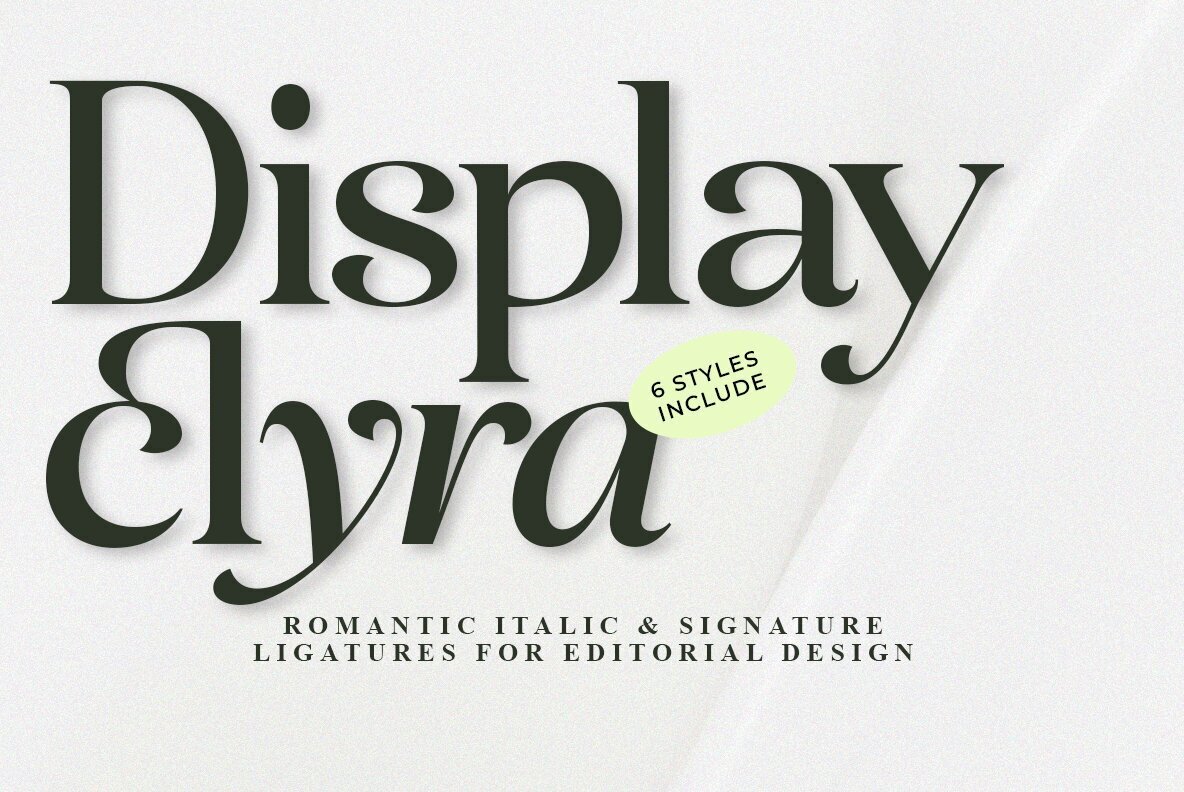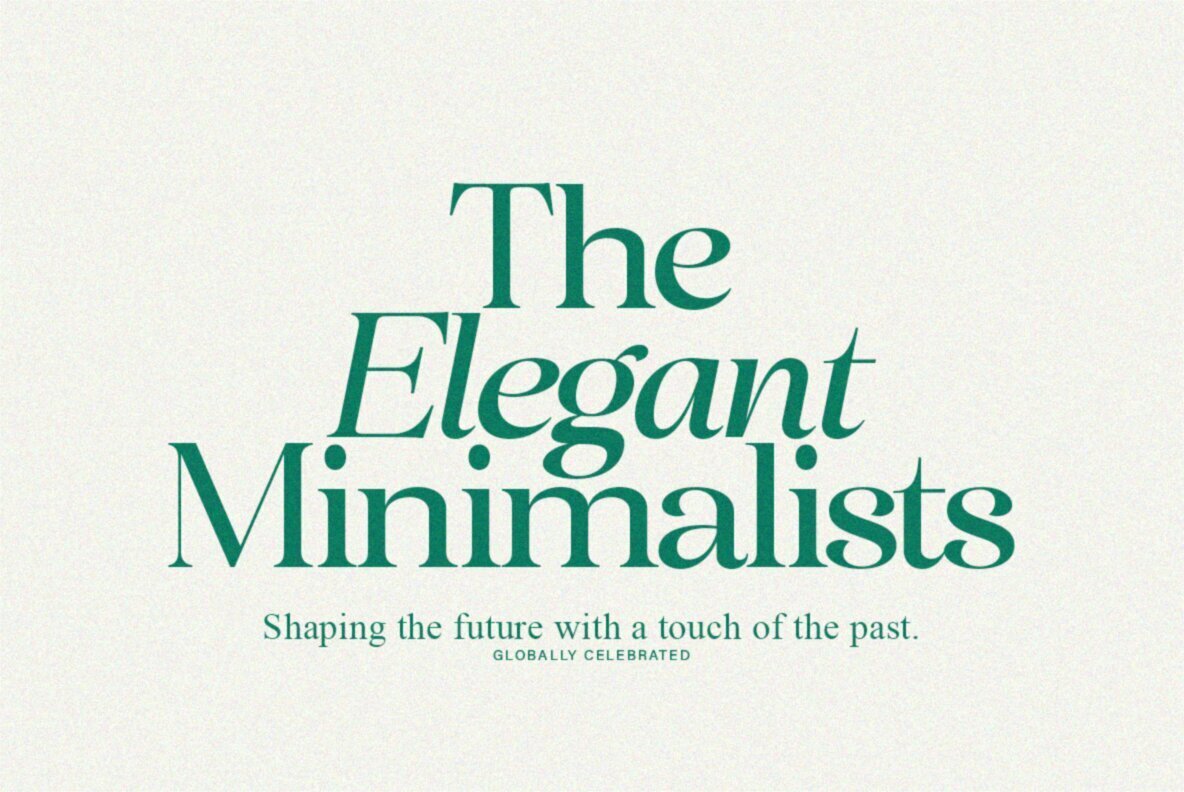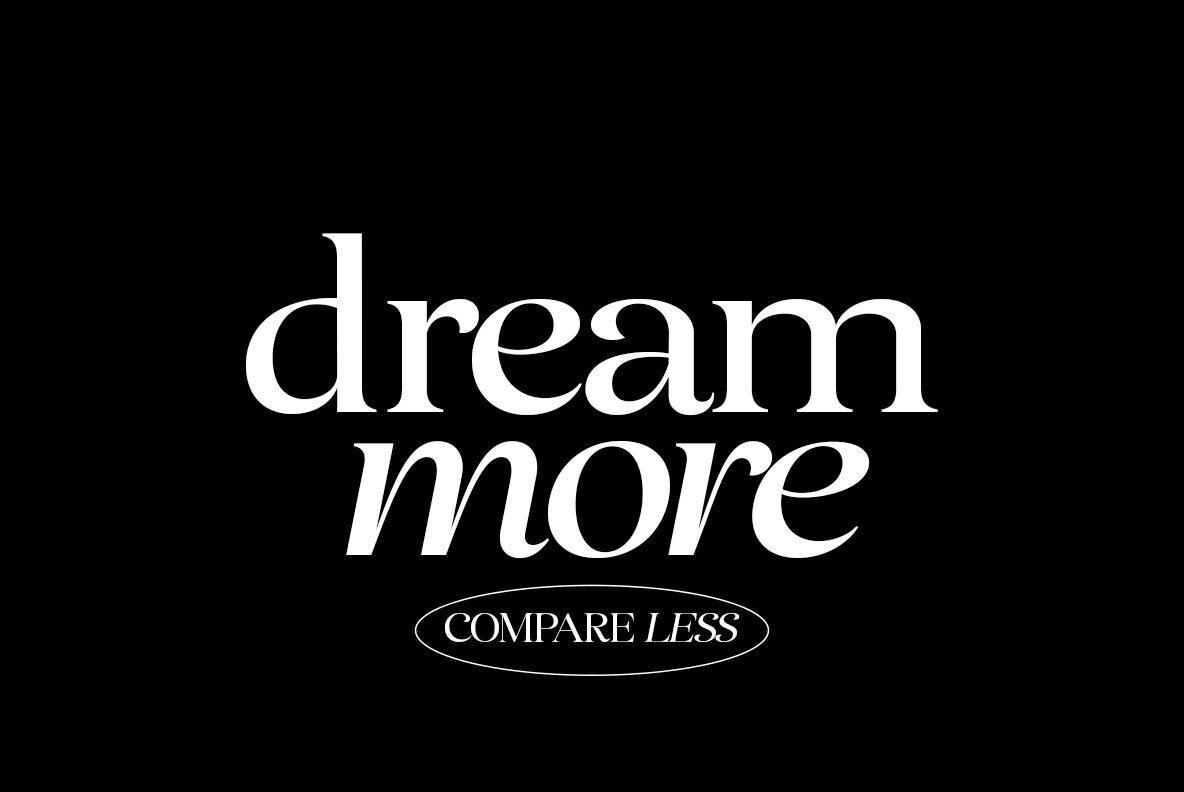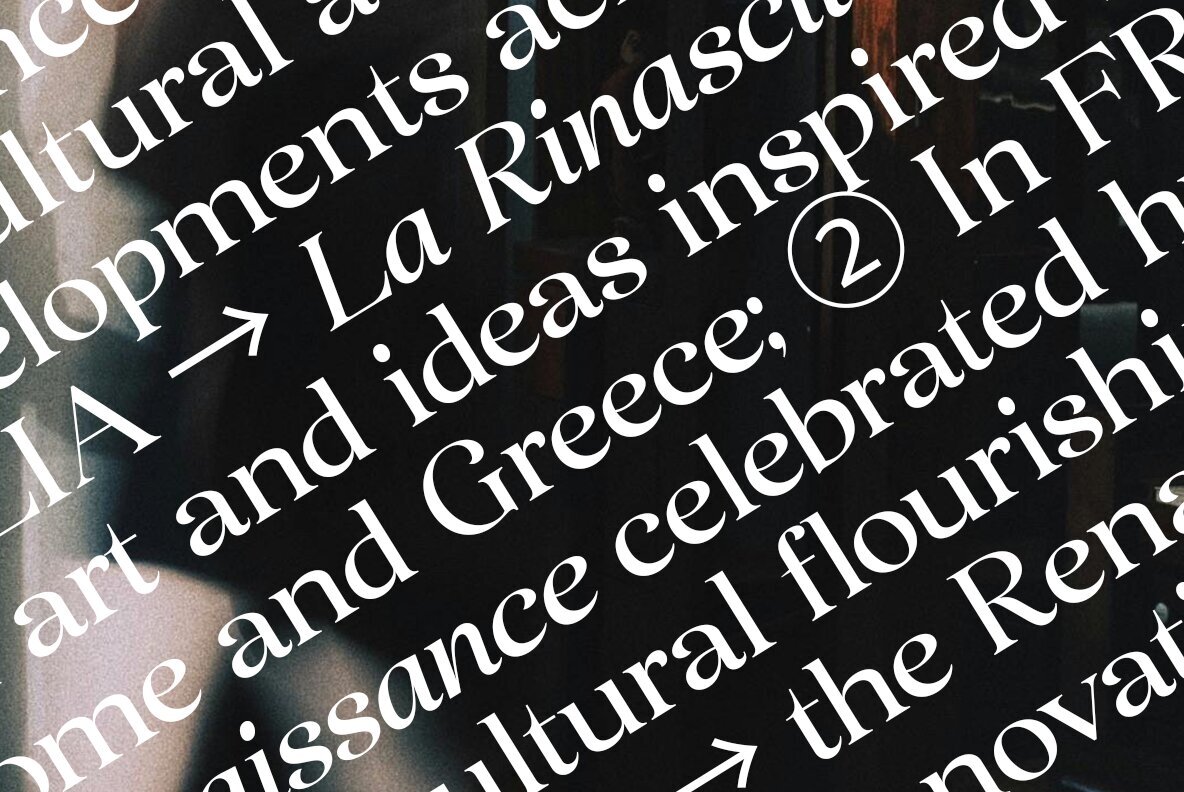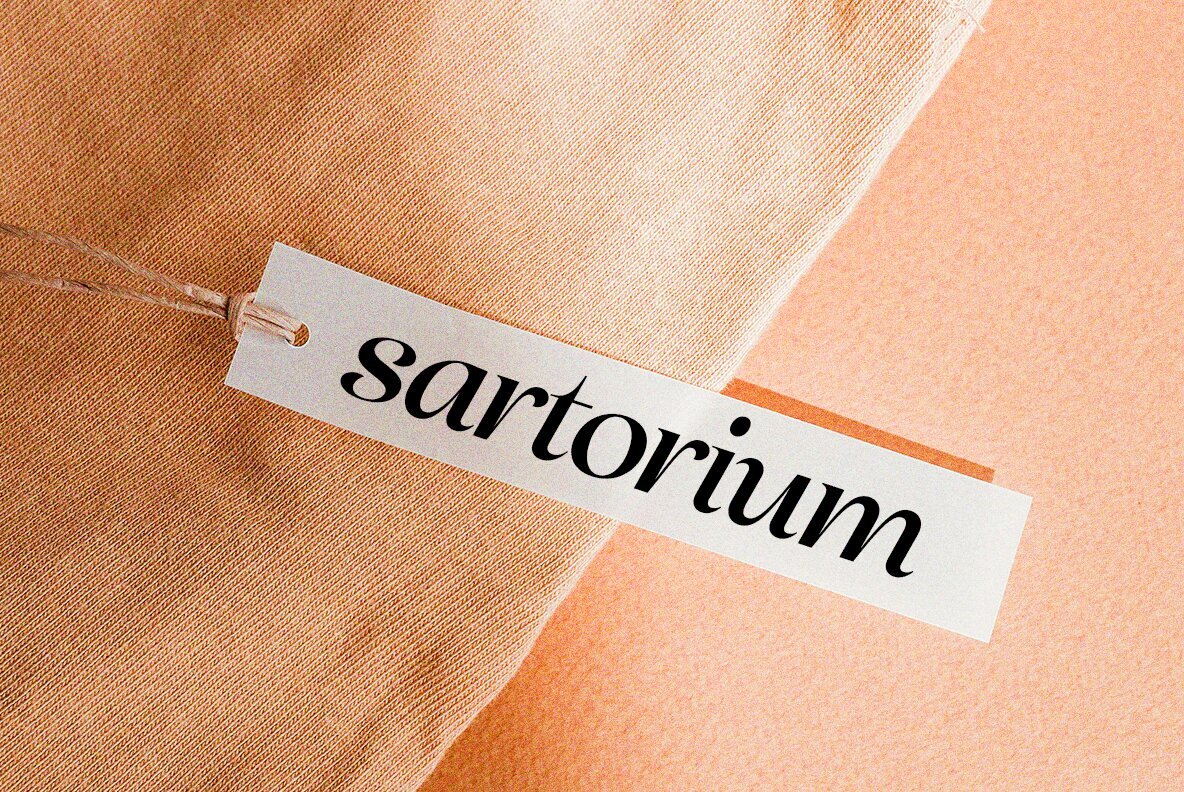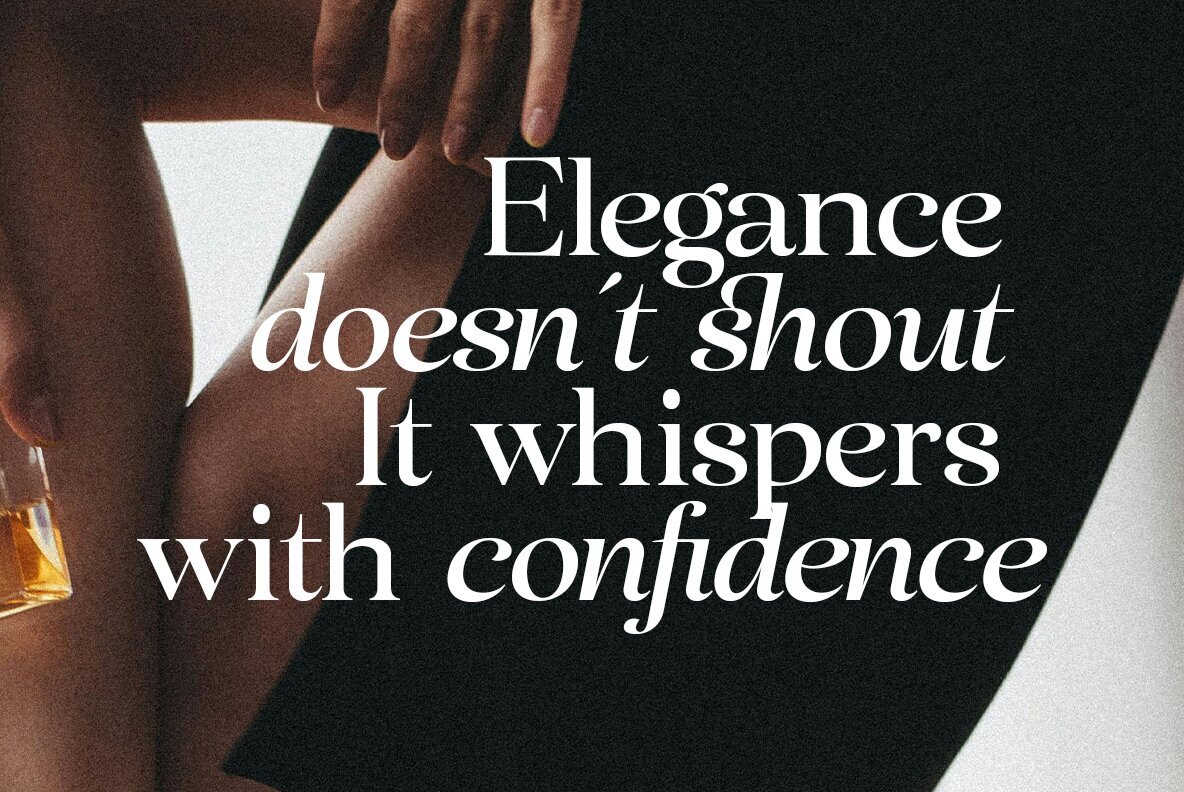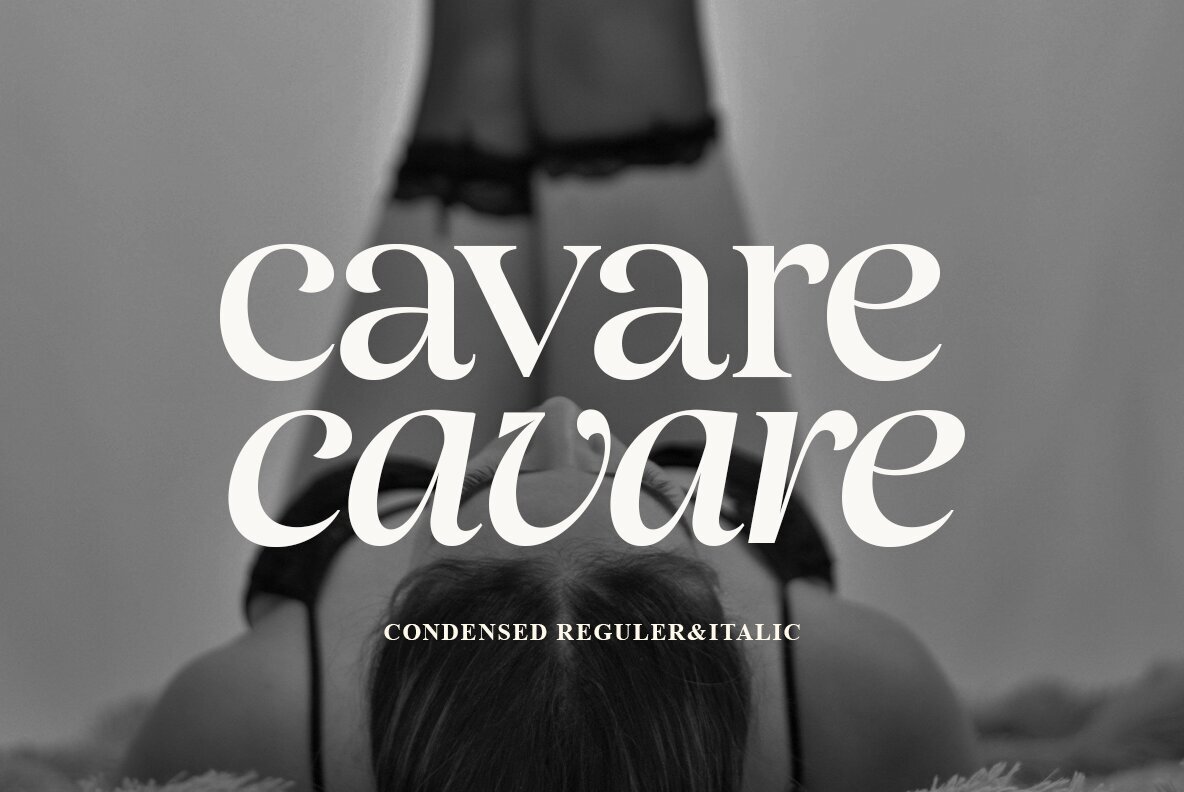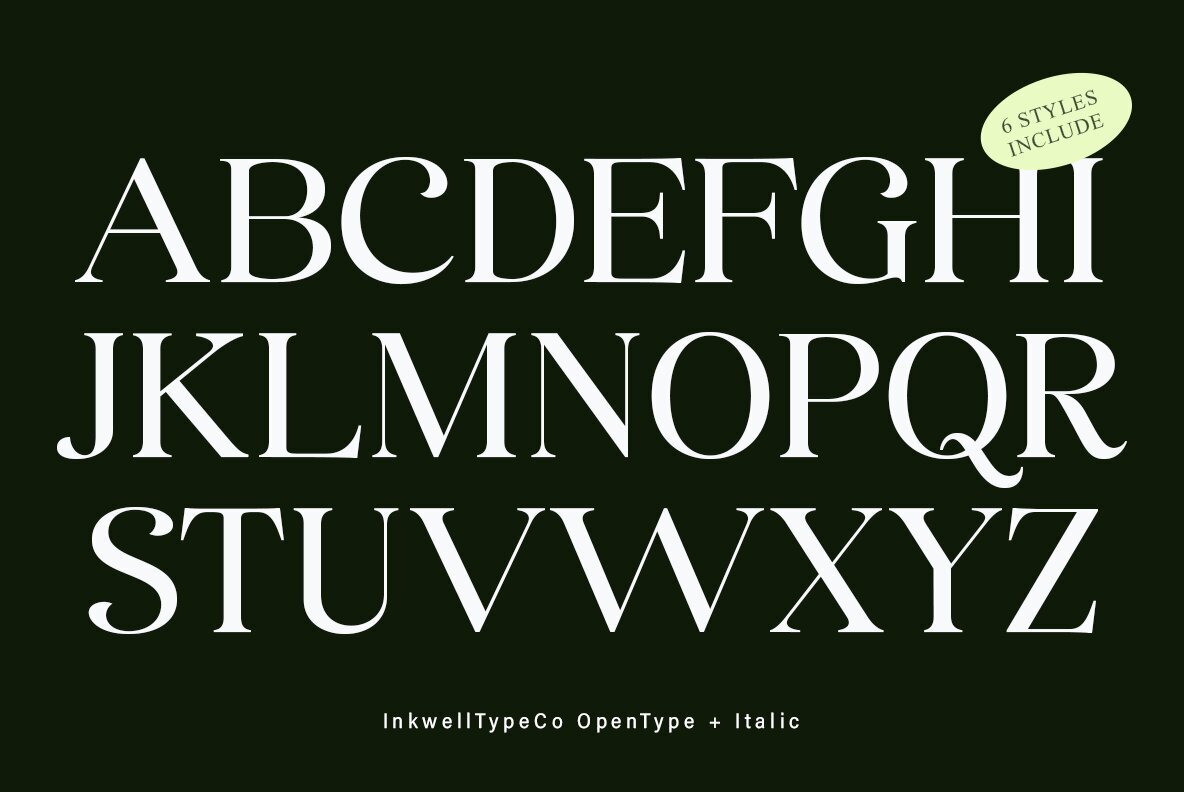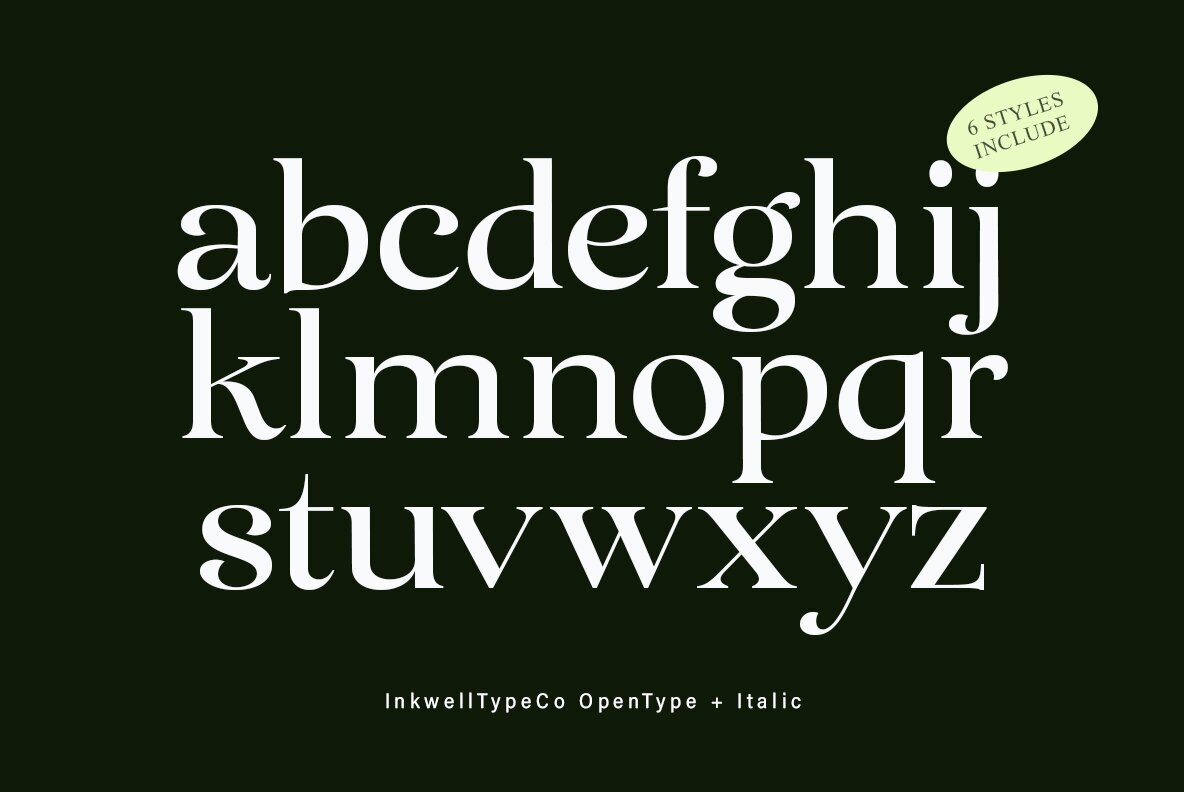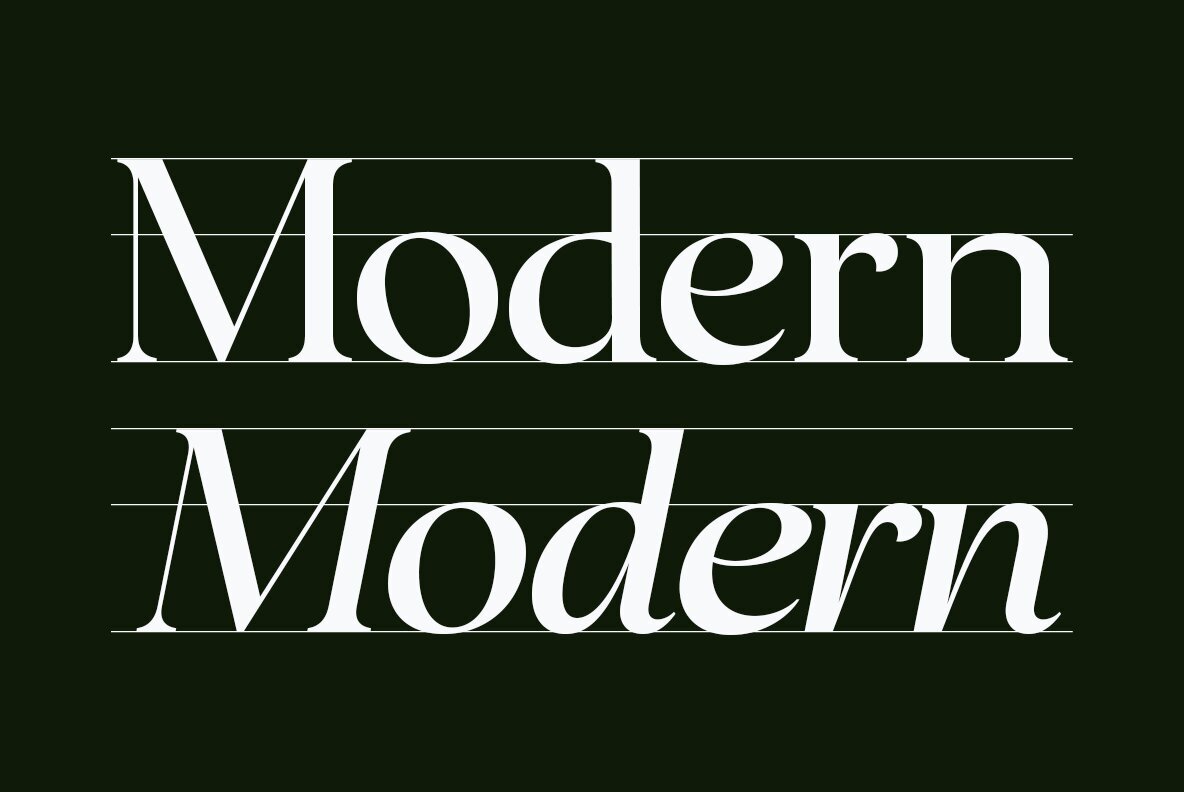
Display Elyra Font
Elevate your design projects with Display Elyra, a high-contrast serif font that blends romantic italic nuances with signature-inspired curves. Ideal for sophisticated editorial layouts and branding, this font adds a touch of timeless elegance to your creative work. Display Elyra offers versatility with six distinctive styles, each providing a refined yet expressive feel. Perfect for magazine spreads, fashion lookbooks, or luxury invitations.Display Elyra Serif Font